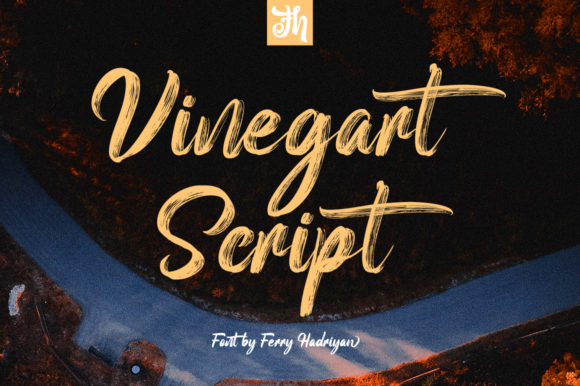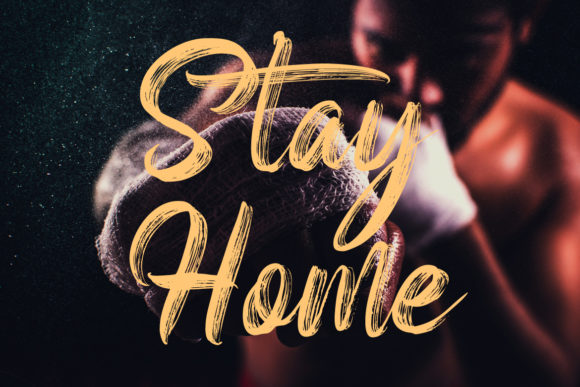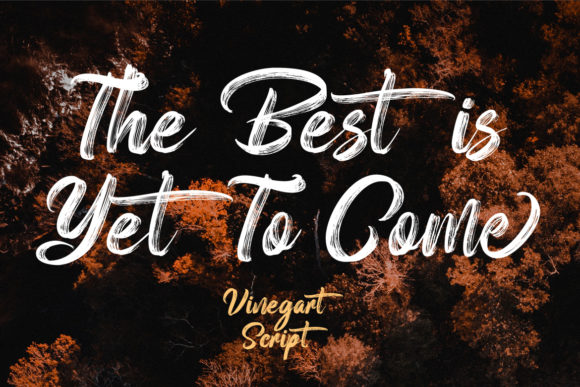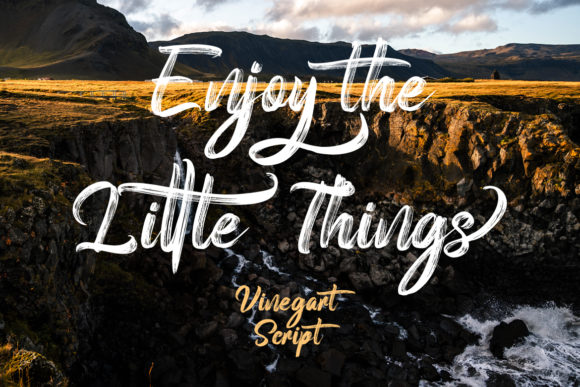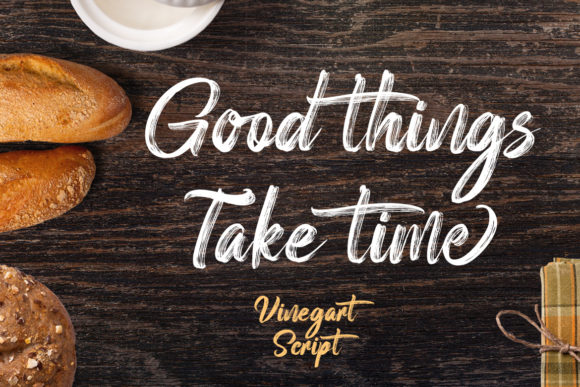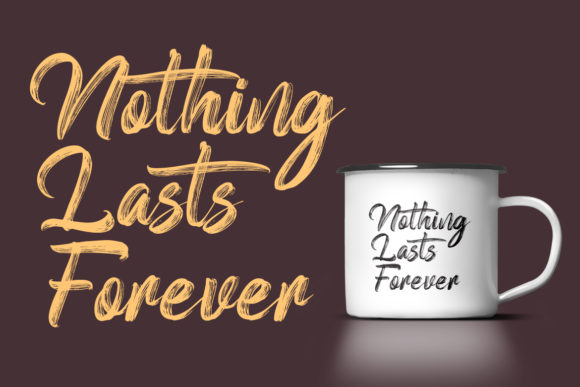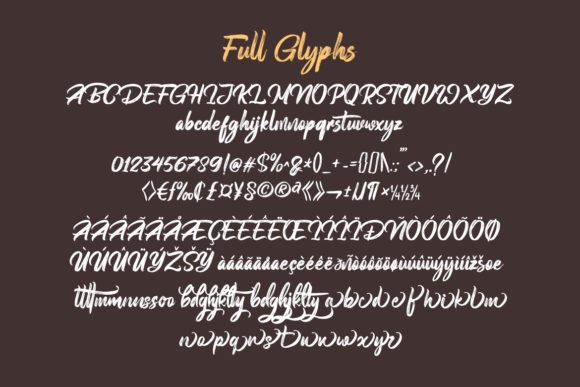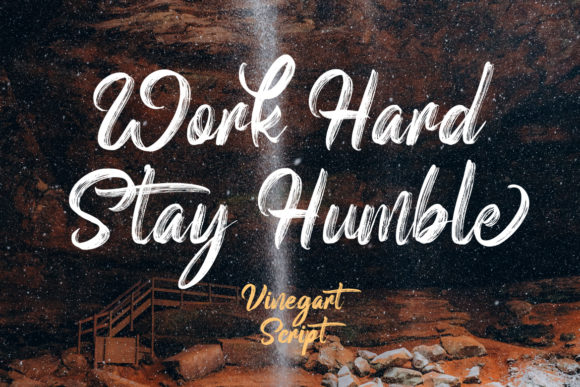
Vinegart Font
About Vinegart Font
Vinegart simplifies elegance into one truly outstanding handwritten font. Whether you’re looking for fonts for Instagram or calligraphy scripts for DIY projects, this font will turn any creative idea into a true piece of art!